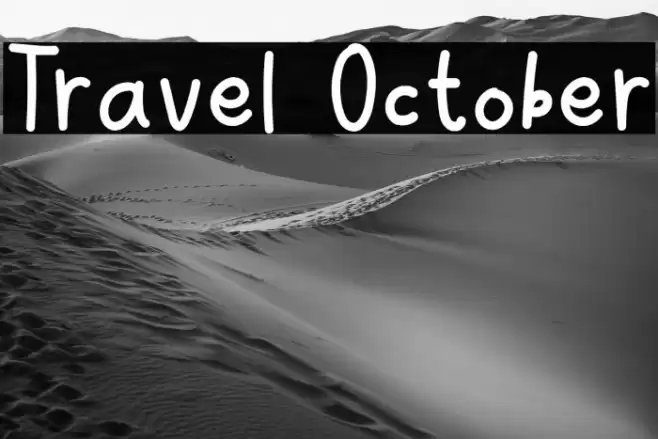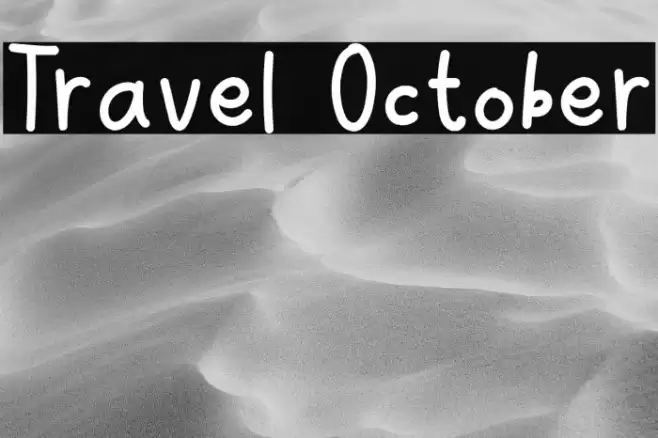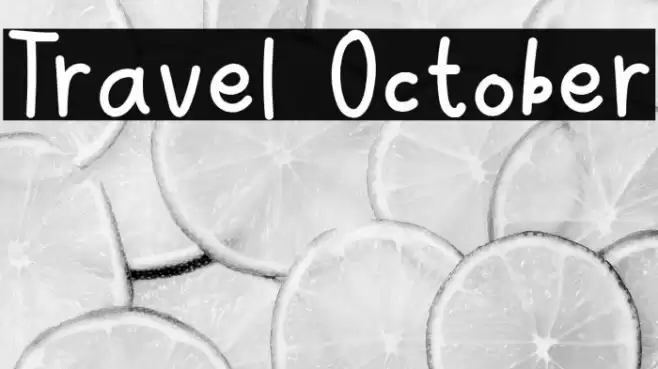
Travel October Font
Travel October Description
This font features a playful and casual handwritten style, characterized by its rounded and slightly irregular letterforms. The uppercase and lowercase letters maintain a consistent flow, giving it a friendly and approachable appearance. The numbers and special characters are designed to match the overall informal aesthetic, making them ideal for creative projects. The strokes are moderately thick, providing good readability while maintaining a whimsical charm. This font is perfect for projects that require a personal touch, such as greeting cards, invitations, or children's book illustrations.
A playful, handwritten font with rounded, irregular letterforms from Regular fonts.
- Proposed Projects: Ideal for greeting cards, invitations, children's books, and creative designs.
- Overall Style: Casual, Playful
- Use Case: Headlines, Informal text, Creative projects